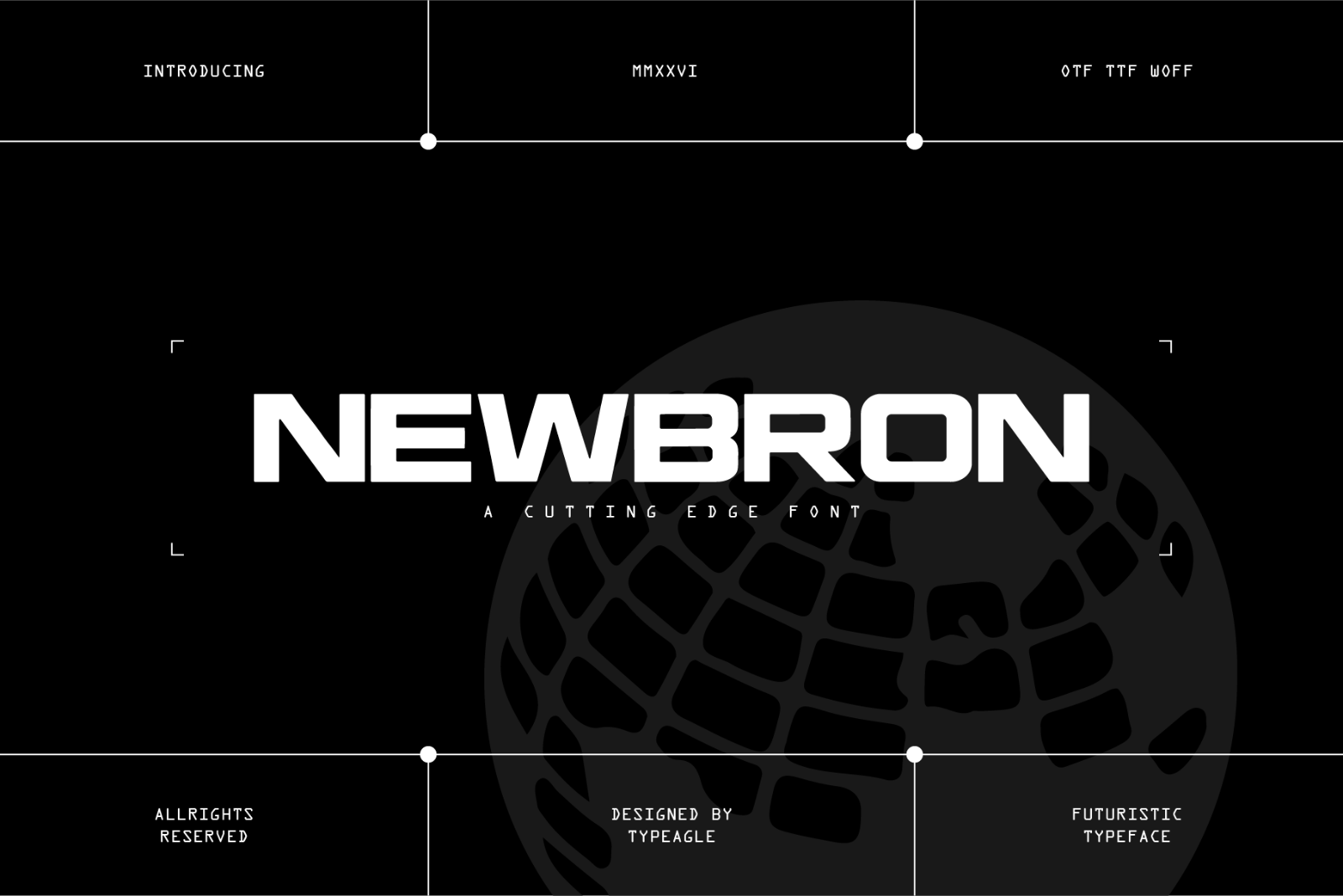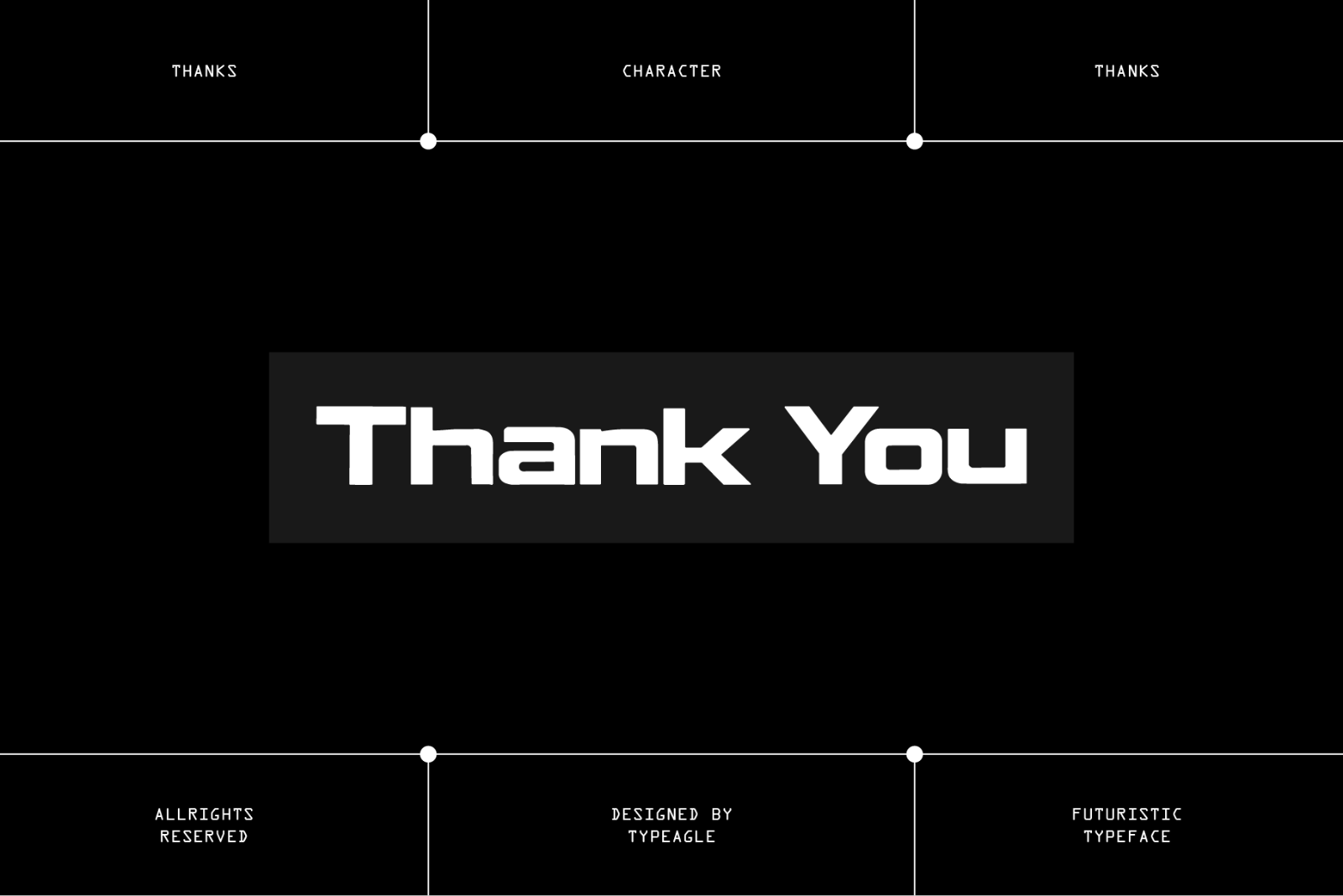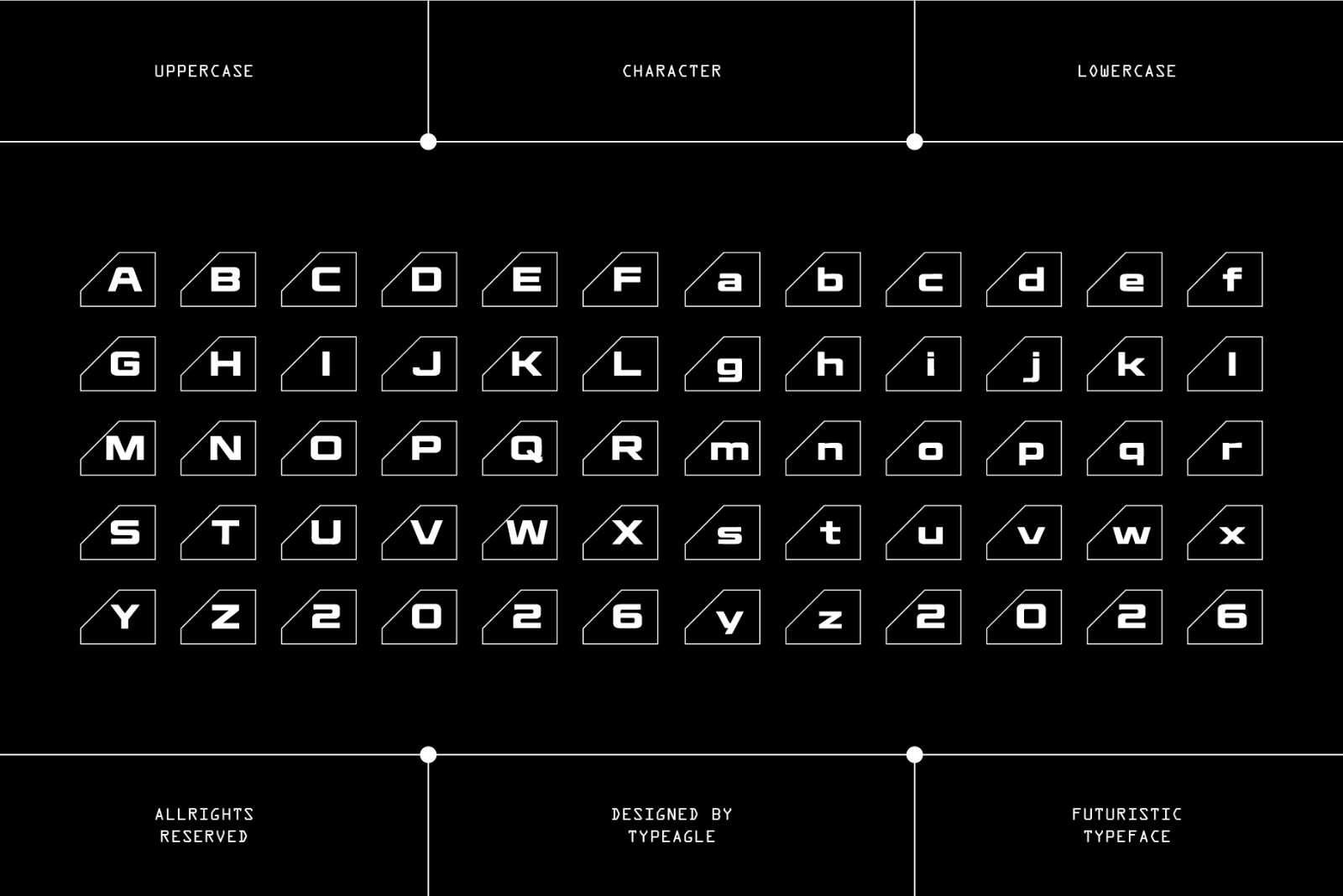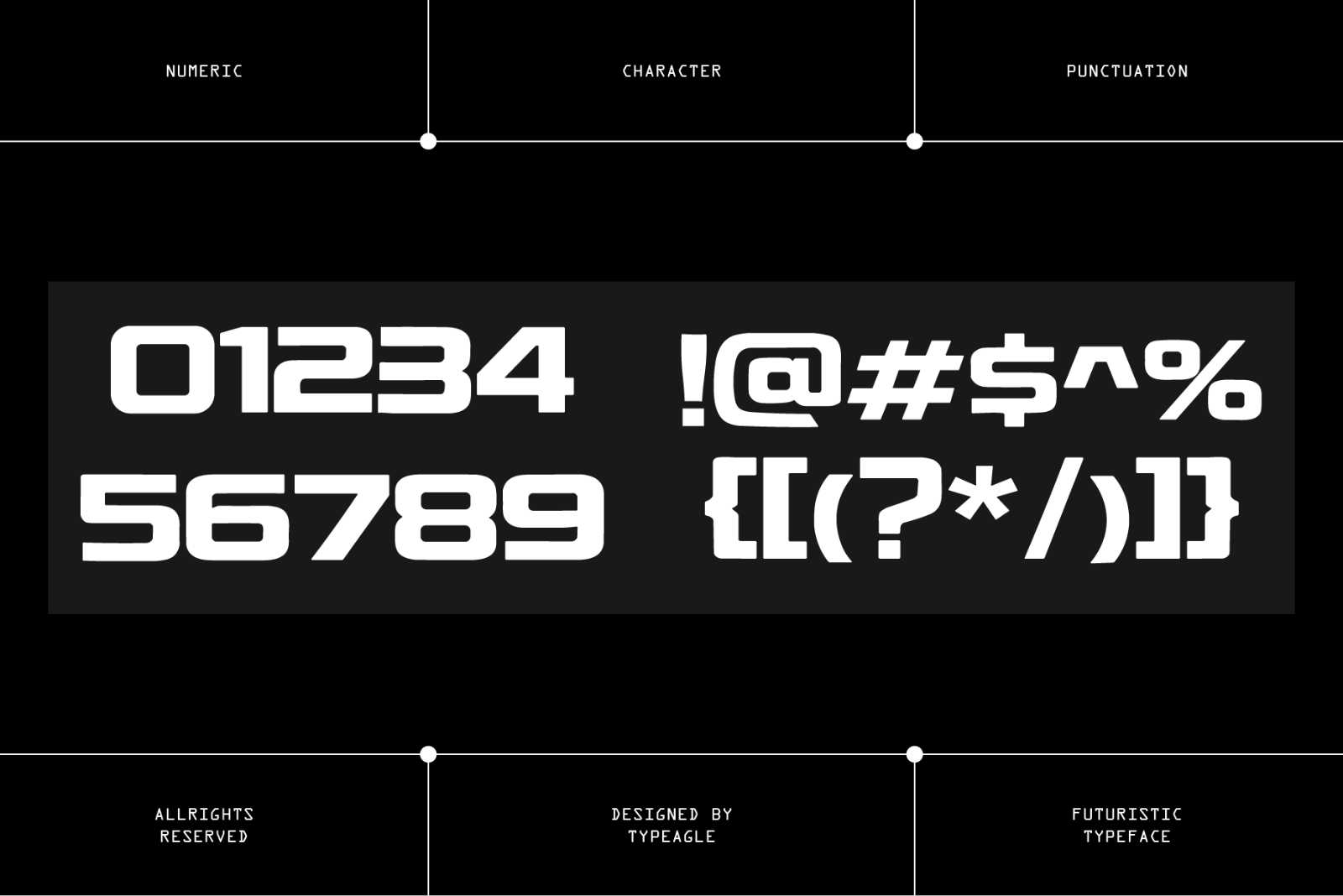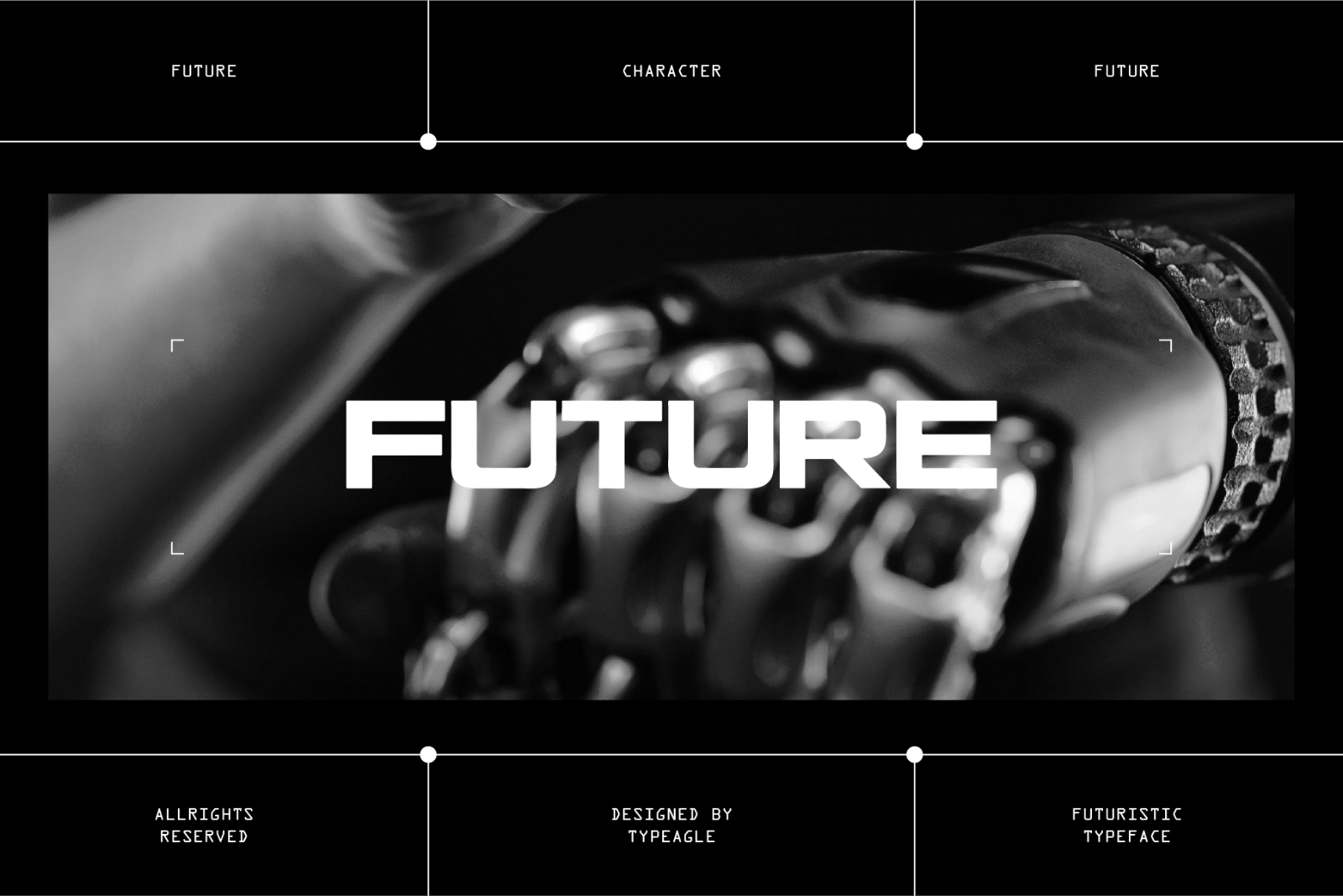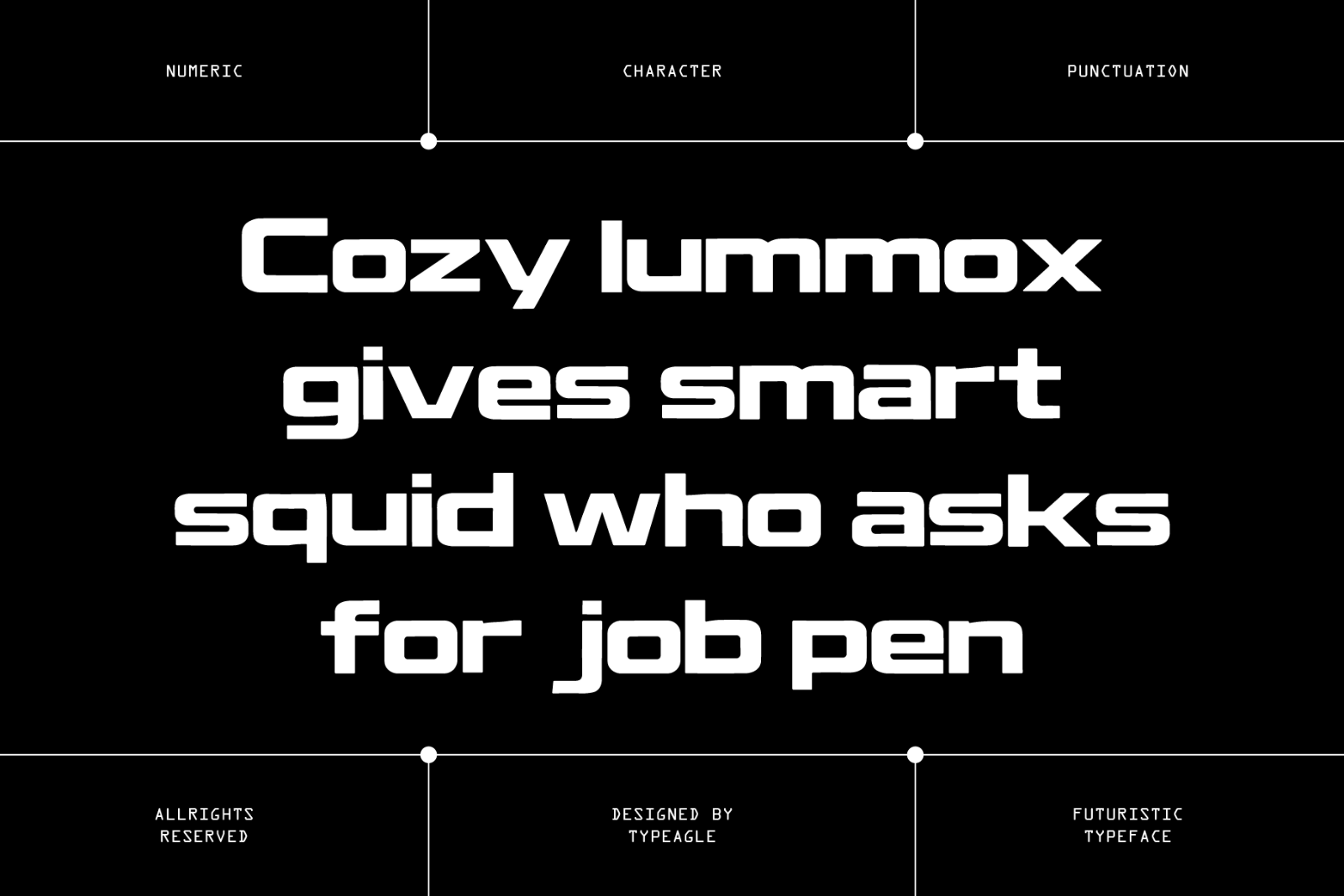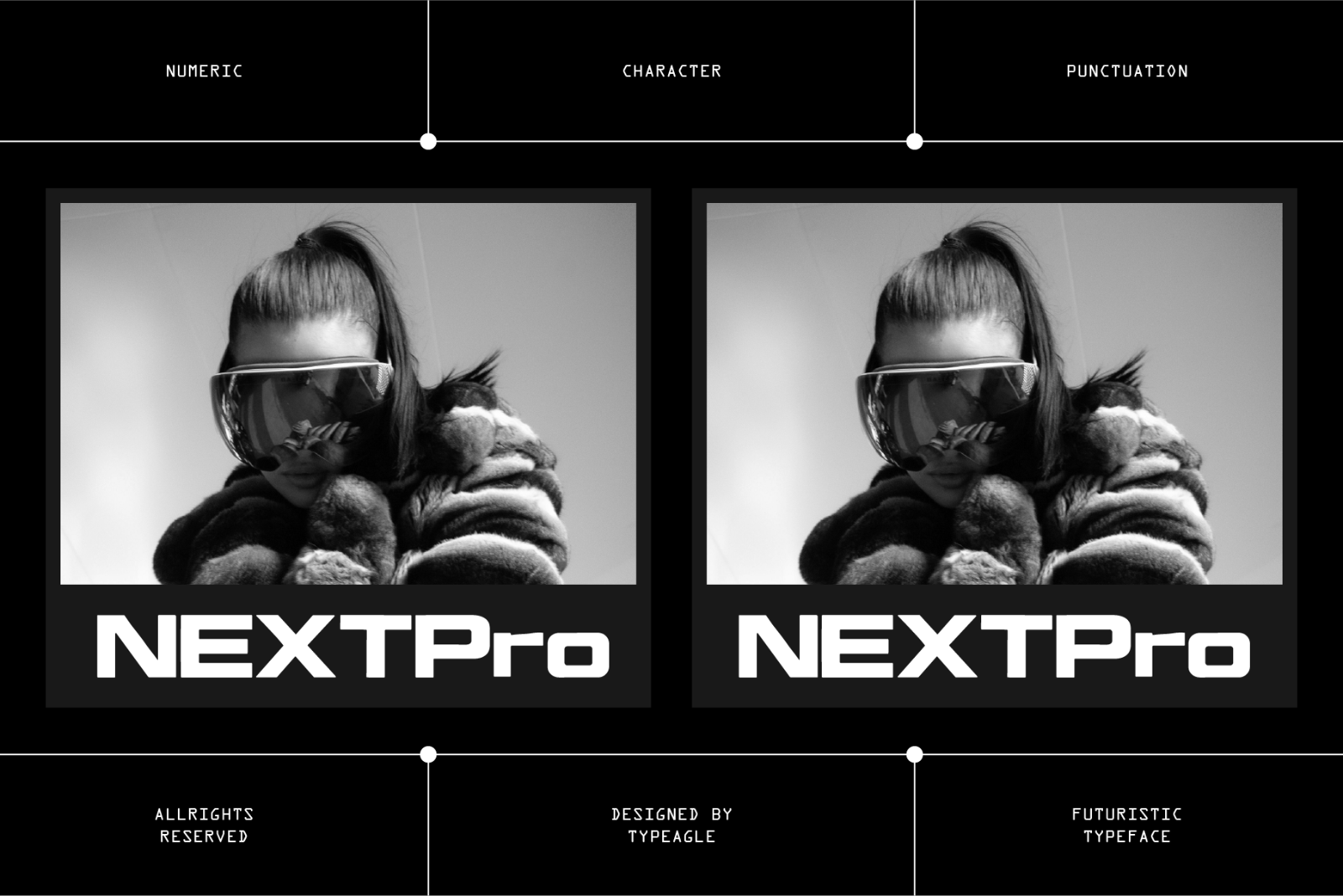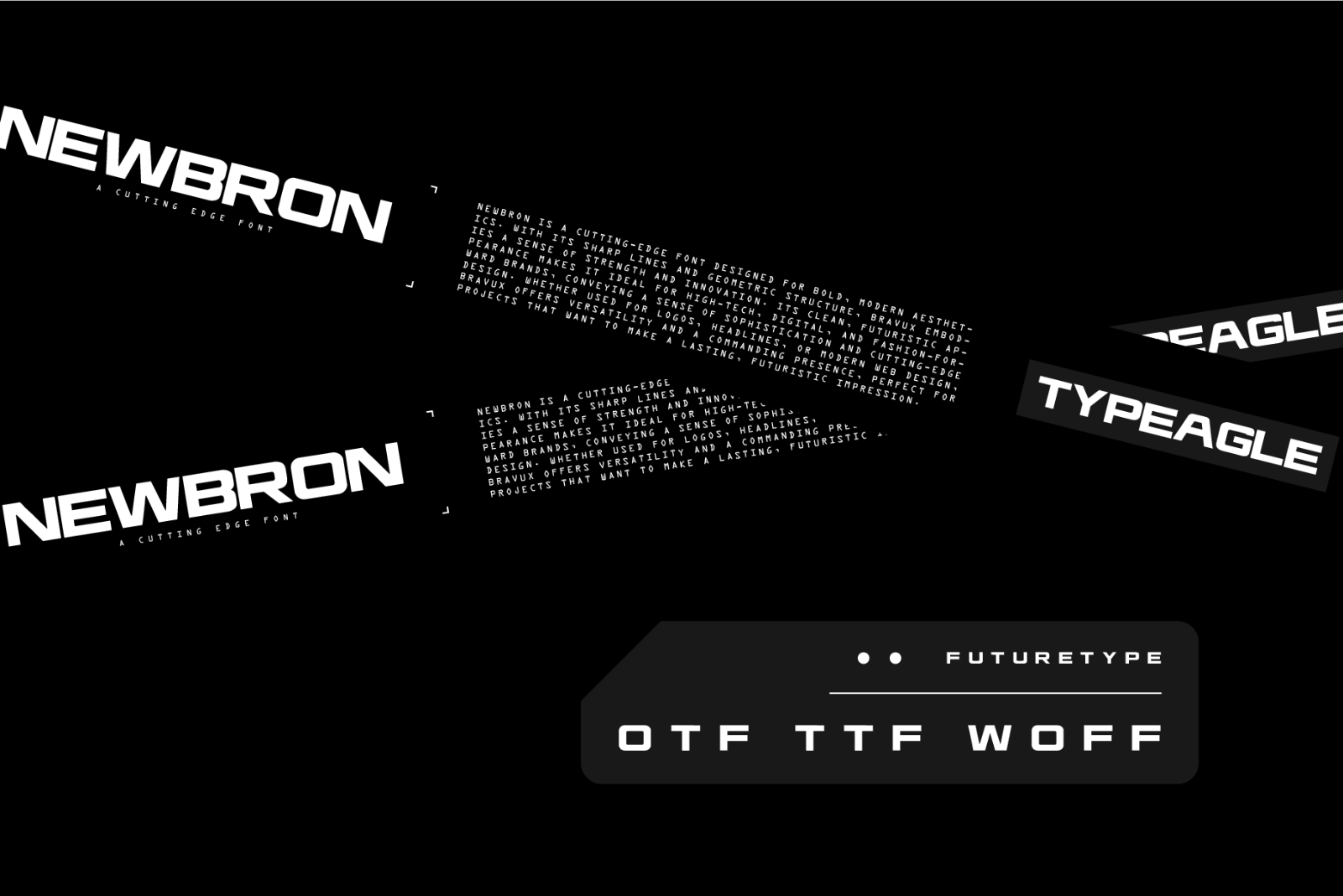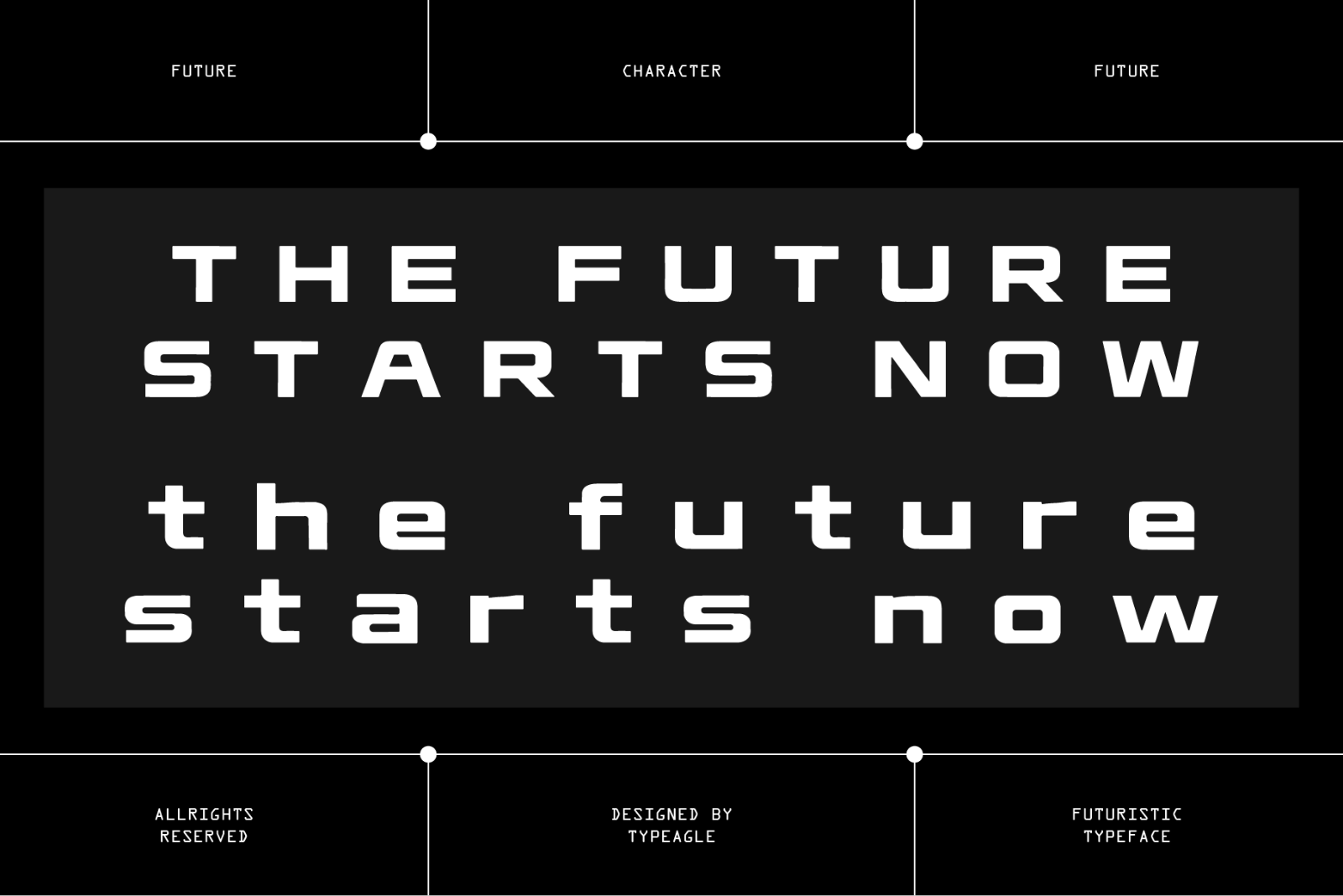
Newbron is a cutting-edge font designed for bold, modern aesthetics. With its sharp lines and geometric structure, Newbron embodies a sense of strength and innovation. Its clean, futuristic appearance makes it ideal for high-tech, digital, and fashion-forward brands, conveying a sense of sophistication and cutting-edge design. Whether used for logos, headlines, or modern web design, Newbron offers versatility and a commanding presence, perfect for projects that want to make a lasting, futuristic impression.